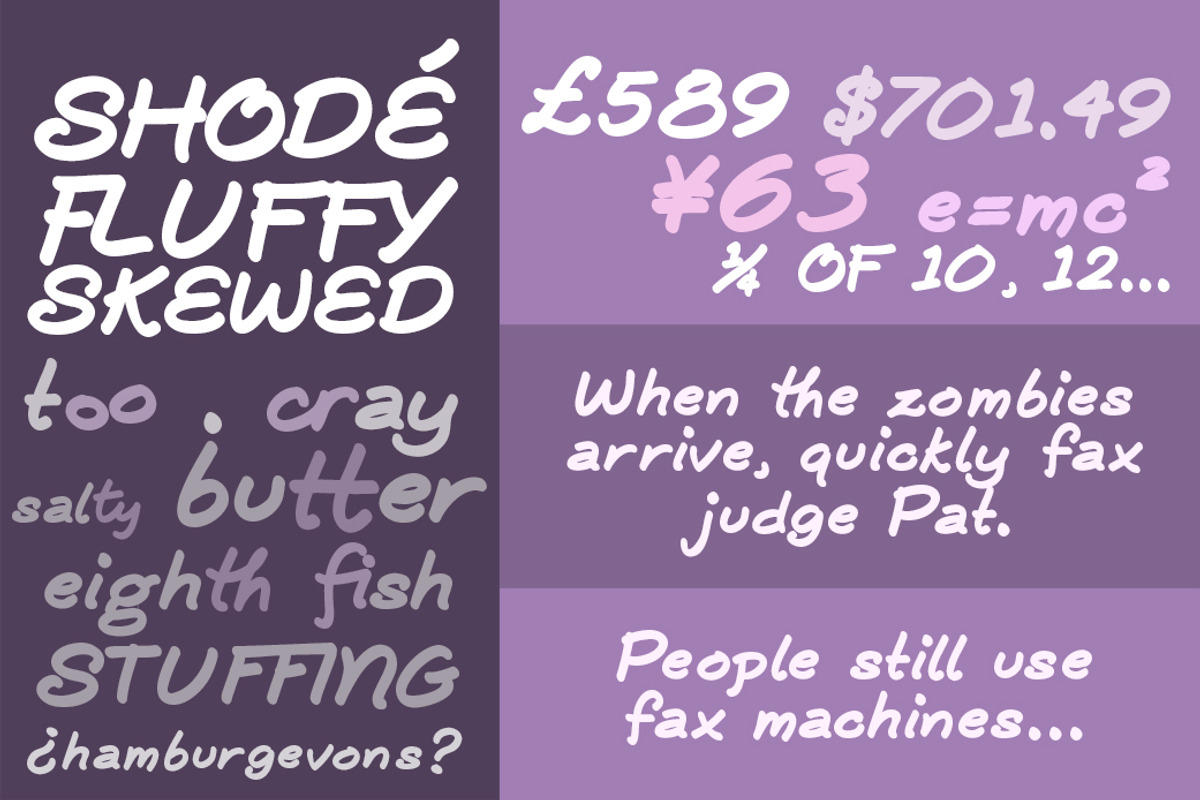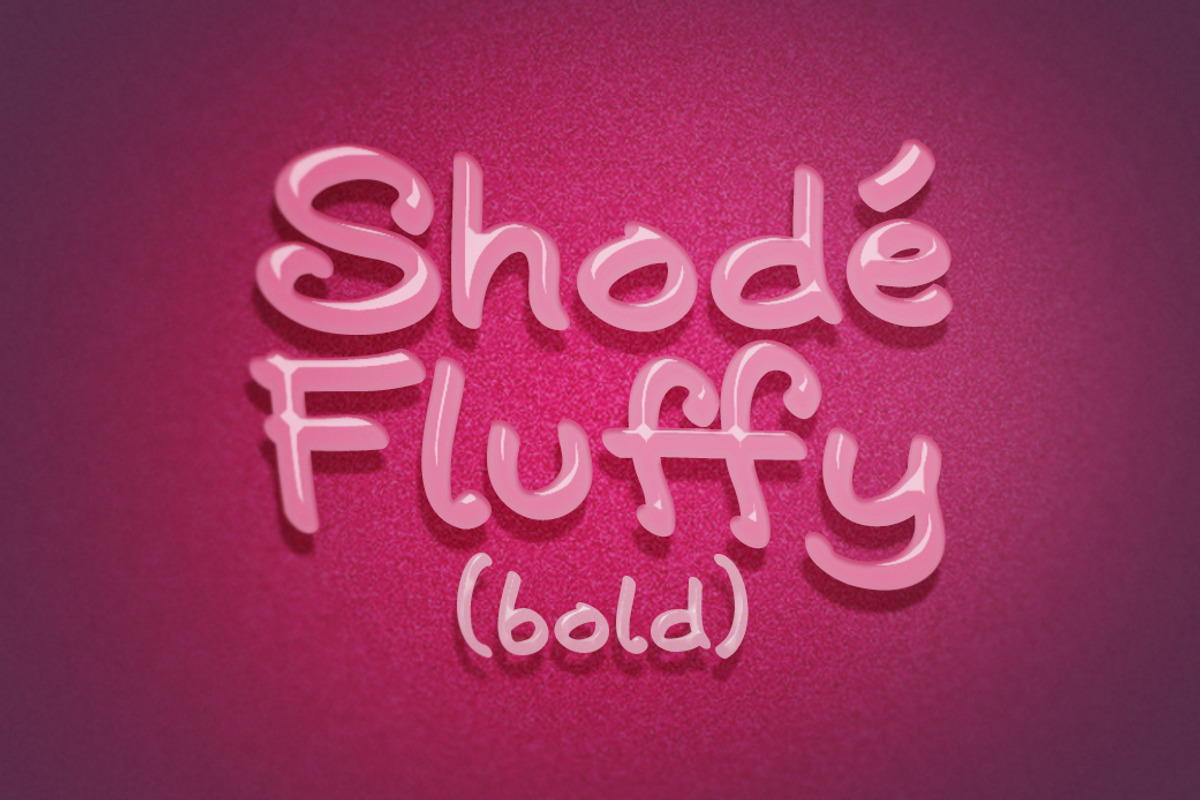
Shodé handwriting font
Shodé handwriting font by Violet on CreativeMarket is a font selected for branding, posters, packaging, typography.
- Available in Regular, Italic (Skewed), Bold (Fluffy) & Bold Italic (Fluffy Skewed), Shodé features some optional ligatures (see words "too",
- There are also characters with diacritical marks, plus a few alternate characters.
Why Shodé handwriting font is worth a look
Shodé handwriting font by Violet on CreativeMarket fits naturally into Branding, posters, packaging, typography.